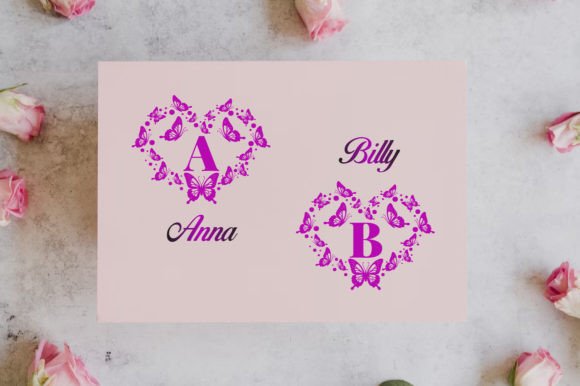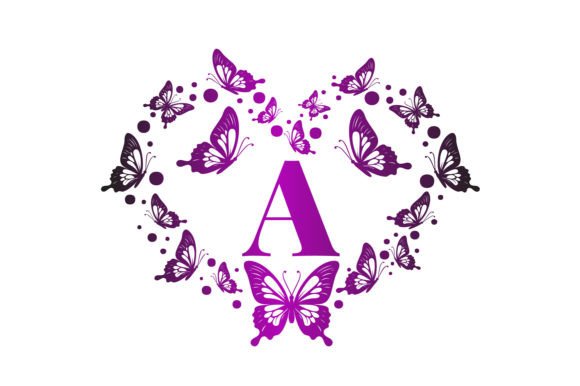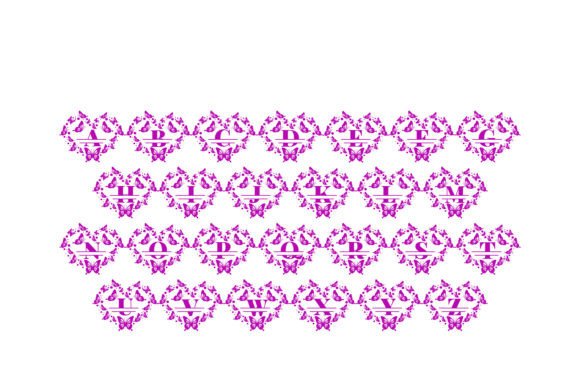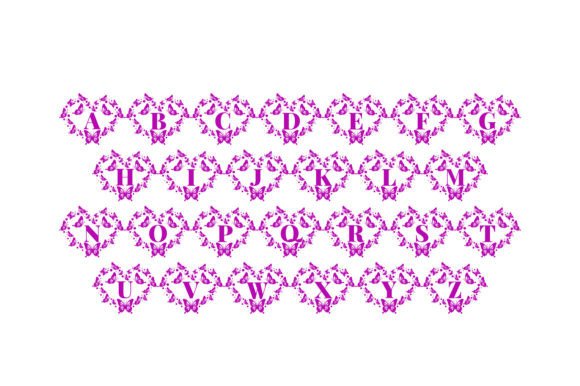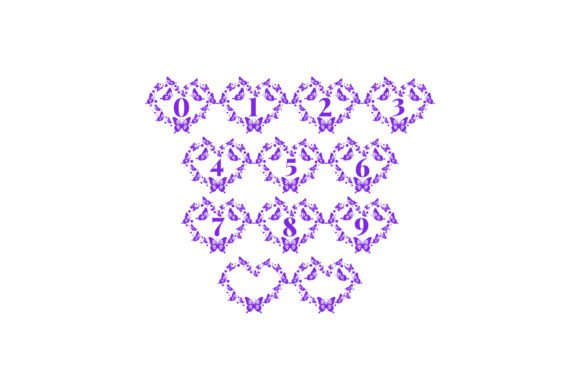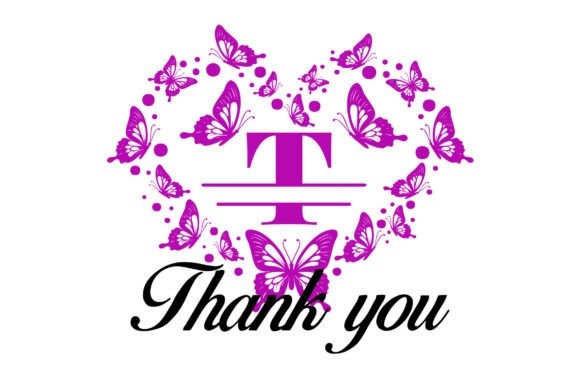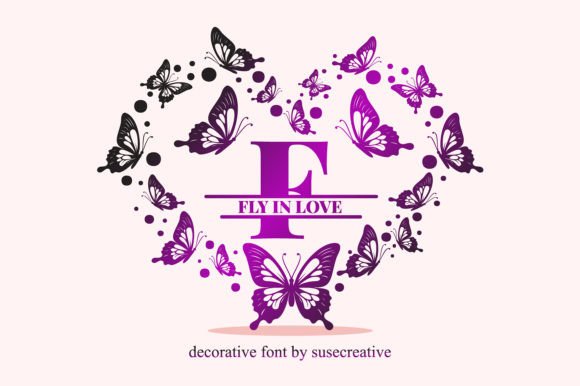
Introducing Fly in Love Font: The Ultimate Romantic Decorative Font
Are you a designer, crafter, or someone who loves to add a personal touch to your letters and invitations? Look no further than the Fly in Love Font, a unique and romantic decorative font that’s sure to capture the hearts of you and your loved ones. This beautiful font features romantic butterflies and a lovely design that’s perfect for love letters, wedding invitations, and a variety of design ideas.
What Makes Fly in Love Font So Special?
Fly in Love Font is a one-of-a-kind decorative font that’s designed to add a touch of elegance and romance to your designs. The font features intricate butterfly designs that are woven throughout the letters, creating a beautiful and eye-catching effect. Whether you’re looking to add a personal touch to your wedding invitations, love letters, or social media graphics, this font is sure to impress.
As a designer or crafter, you’re always on the lookout for unique and creative ways to make your designs stand out. Fly in Love Font is the perfect addition to your design toolkit, offering a range of possibilities for creative expression. Use it to create stunning wedding invitations, beautiful greeting cards, or romantic love letters that will leave a lasting impression.
Key Features of Fly in Love Font
- Unique Decorative Design: Fly in Love Font features a one-of-a-kind decorative design that’s sure to capture attention.
- Romantic Butterflies: The font features intricate butterfly designs that add a touch of romance and elegance to your designs.
- Perfect for Love Letters and Wedding Invitations: Use Fly in Love Font to create beautiful love letters, wedding invitations, and other romantic designs.
Ideas for Using Fly in Love Font
There are countless ways to use Fly in Love Font in your designs. Here are a few ideas to get you started:
- Wedding Invitations: Use Fly in Love Font to create stunning wedding invitations that set the tone for your special day.
- Love Letters: Add a personal touch to your love letters with this beautiful and romantic font.
- Greeting Cards: Use Fly in Love Font to create beautiful greeting cards for special occasions like Valentine’s Day and anniversaries.
- Social Media Graphics: Add a touch of romance to your social media graphics with Fly in Love Font.
Tips for Getting the Most Out of Fly in Love Font
To get the most out of Fly in Love Font, here are a few tips to keep in mind:
- Experiment with Different Colors: Try out different colors and color combinations to see what works best with Fly in Love Font.
- Play with Font Sizes: Experiment with different font sizes to create visual interest and hierarchy in your designs.
- Combine with Other Fonts: Try combining Fly in Love Font with other fonts to create a unique and eye-catching effect.
Fly in Love Font is a unique and romantic decorative font that’s perfect for designers, crafters, and anyone who loves to add a personal touch to their letters and invitations. With its intricate butterfly designs and lovely look, this font is sure to capture the hearts of you and your loved ones. So why wait? Download Fly in Love Font today and start creating beautiful, romantic designs that will leave a lasting impression.